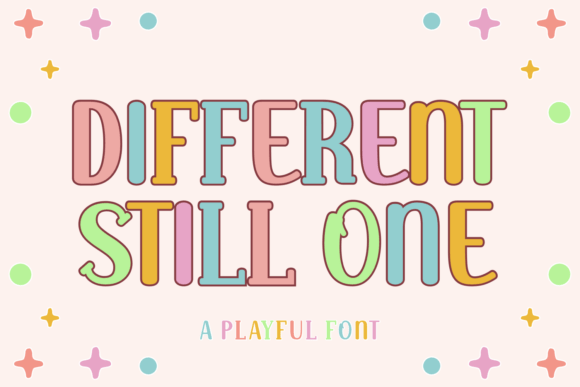
Different Still One Font: A Whimsical Charm for Your Creative Projects
In the world of typography, a font can make all the difference in the way your message is conveyed. A well-designed font can add personality, charm, and elegance to your creative projects. If you’re looking for a font that exudes cuteness and playfulness, look no further than “Different Still One Display Font”. This handwritten style typeface is perfect for a variety of projects, from greeting cards and quotes to product packaging and logotype design.
Key Features of Different Still One Font
- Multilingual Accents: “Different Still One” boasts of multilingual accents, making it perfect for projects that require a touch of international flair.
- Authentic Uniqueness: This font’s unique design ensures that your project stands out from the crowd.
- Clean Aesthetics: The clean and elegant design of “Different Still One” makes it perfect for a variety of applications.
Use Cases for Different Still One Font
“Different Still One” is a versatile font that can be used in a variety of projects. Here are some use cases:
- Greeting Cards and Quotes: Add a touch of elegance and personality to your greeting cards and quotes with “Different Still One”.
- Product Packaging: Use “Different Still One” to add personality to your product packaging and labels.
- Posters: Create eye-catching posters with “Different Still One” that are sure to grab attention.
- Mugs and Embroidery Crafts: Transform every letter on mugs and take embroidery crafts to new heights with “Different Still One”.
- Logotype Design: Use “Different Still One” to create unique and memorable logotypes for your events or brand.
- Editorial Design: Add an organic touch to your editorial design, including 7 types and web design.
- Logos: Use “Different Still One” to encapsulate your brand identity in a stylish and refined way.
- Merchandising and Apparels: Capture attention and leave a lasting impression with “Different Still One” on your merchandising and apparels.
- Education: Add exciting visual cues to education with “Different Still One”, making learning a fun journey.
Celebrating Typography with Different Still One Display Font
“Different Still One Display Font” is a stroke of genius that marries functionality with beauty. This font is a perfect example of how typography can elevate your creative projects and add an extra layer of personality. With “Different Still One”, you can create projects that are not only visually appealing but also emotionally engaging.
Benefits of Using Different Still One Font
- Unique and Memorable: “Different Still One” helps you create unique and memorable projects that stand out from the crowd.
- Emotional Connection: This font helps you craft an emotional connection with your readers, making your message more impactful.
- Versatile: “Different Still One” is a versatile font that can be used in a variety of projects, from digital to print.
- Elegant and Refined: This font adds an elegant and refined touch to your projects, making them perfect for a variety of applications.
Why Choose Different Still One Font?
If you’re looking for a font that can add personality, charm, and elegance to your creative projects, “Different Still One Display Font” is the perfect choice. With its unique design, multilingual accents, and clean aesthetics, this font is perfect for a variety of applications. Whether you’re a designer, entrepreneur, or educator, “Different Still One” is a great addition to your font library.
“Different Still One Display Font” is a whimsical charm that can elevate your creative projects and add an extra layer of personality. With its unique design, multilingual accents, and clean aesthetics, this font is perfect for a variety of applications. Whether you’re looking to create greeting cards, product packaging, or logotypes, “Different Still One” is a great choice. So why settle for ordinary fonts when you can have a stroke of genius? Choose “Different Still One Display Font” for your next project and experience the power of typography.